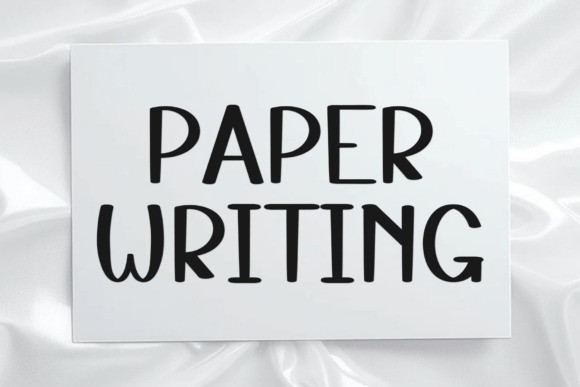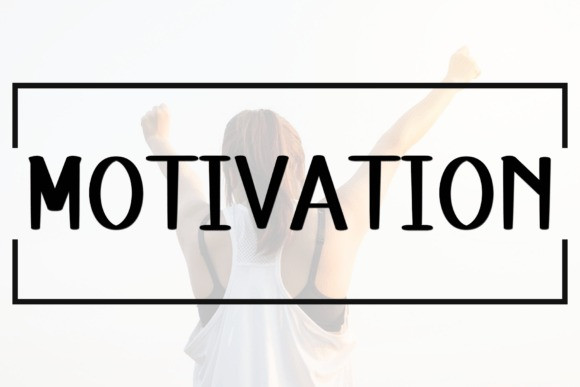
Black White Font is a modern display typeface designed to balance bold presence with playful charm, making it a versatile choice for eye-catching design work. The font features tall, clean letterforms with slightly irregular curves and subtle width variations that lend it a handcrafted, organic feel while still maintaining sharp clarity. Its high contrast and elongated structure create a striking visual rhythm, perfect for headlines, posters, logos, packaging, and branding projects that need to stand out with both confidence and personality.
The simplicity of its monochromatic inspiration enhances readability, while its quirky proportions add a creative edge, giving designers the freedom to pair it with minimal layouts or vibrant graphics. Ideal for contemporary design aesthetics, Black White works beautifully across digital and print platforms, ensuring a strong yet approachable character that turns typography into a bold statement.